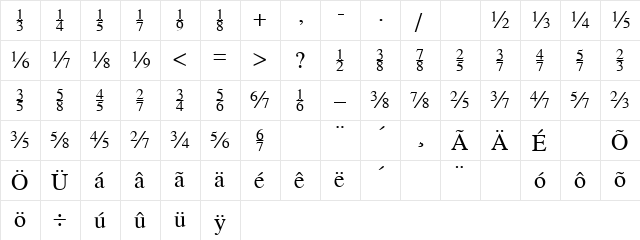
TiFractions Regular
Design Context for TiFractions Typeface
TiFractions is a composed and adaptable typeface that performs quietly and consistently across a wide range of design contexts.